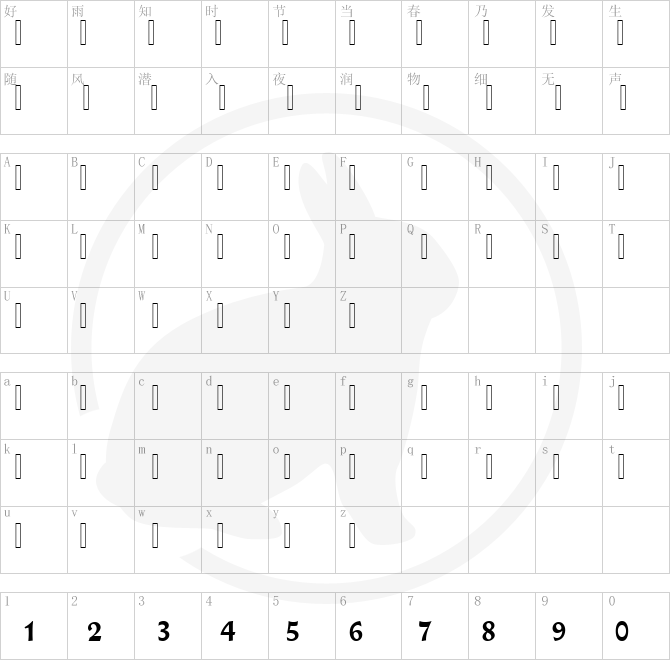
- Font Name:Qadi Linotype
Qadi-Linotype.ttf is a very beautiful artistic font, Qadi-Linotype.ttf is widely used in the design and printing of various books and pictures,Qadi-Linotype.ttf has a strong visual impact,Qadi-Linotype.ttf is a commonly used font in newspapers, magazines and books, and is used in posters, e-commerce Poster design, store design, logo design, font design and other fields.Qadi-Linotype.